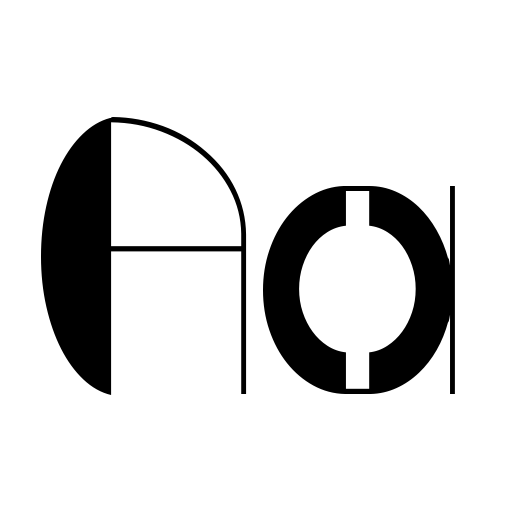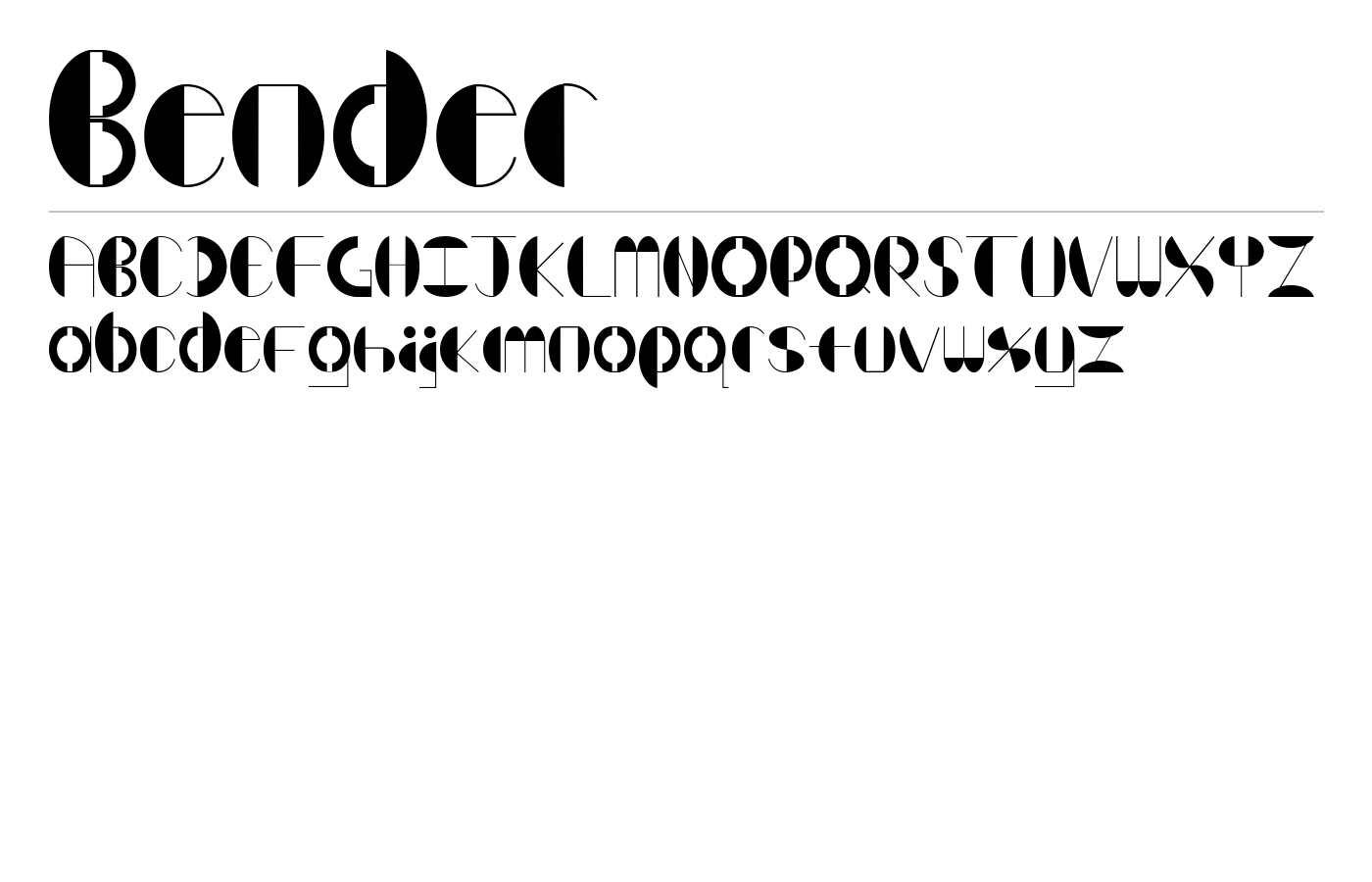
Bender is a bold and geometric sans serif font with a striking modernist style characterized by its semi-circular shapes and sharp contrasts between thick and thin strokes. Its unique letterforms, including split elements and a playful mix of curves and angles, give it a futuristic and artistic feel, making it ideal for eye-catching headlines, branding, and creative projects that want to convey innovation and sophistication. This font stands out best in display uses where its distinctive design can be fully appreciated.
Bender Font
About Bender Font